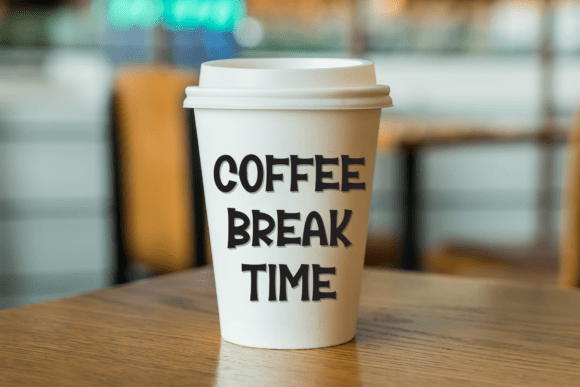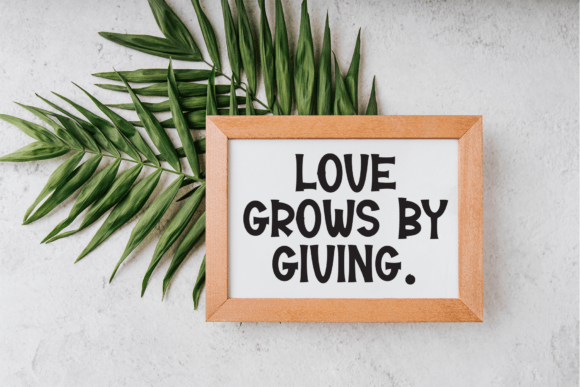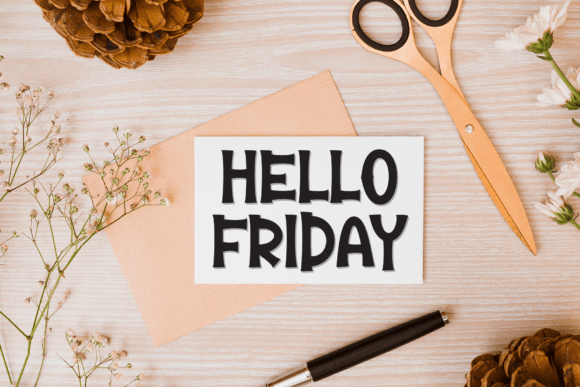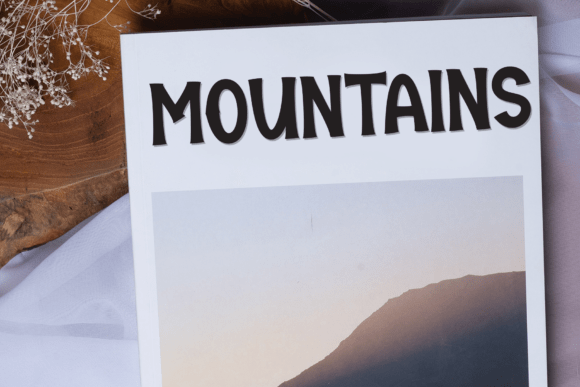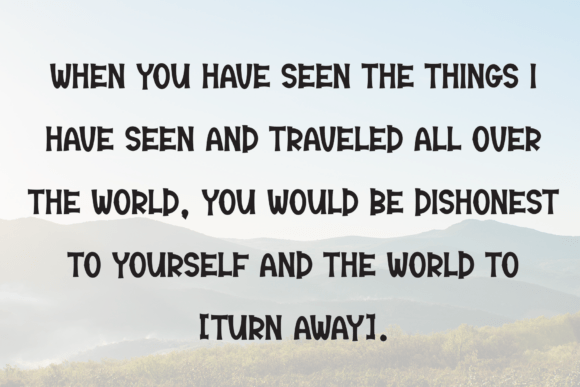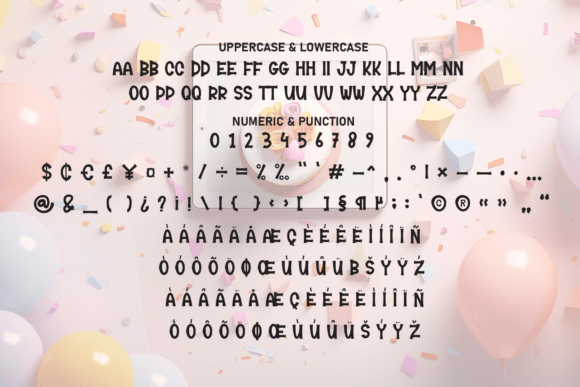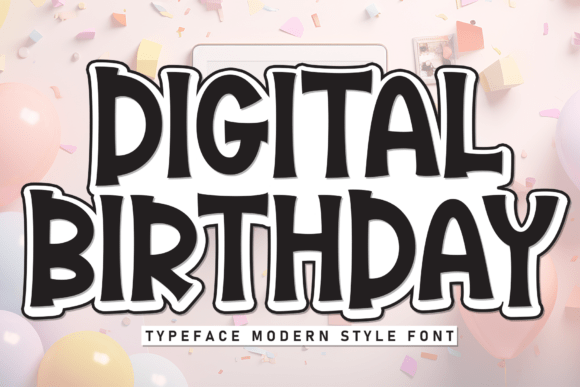
Introducing the Digital Birthday Font: Elevate Your Designs with a Touch of Elegance
Are you tired of using the same old fonts for your designs? Do you want to add a touch of elegance and sophistication to your projects? Look no further! Our Digital Birthday Font is here to revolutionize the way you create. With its unique and stylish letters, this font is perfect for a variety of applications, from wall displays to wedding invitations, social media posts, logos, advertisements, product packaging, and more.
What Makes Our Digital Birthday Font Special?
Our Digital Birthday Font is designed to provide you with an extraordinary experience. The latest style letters are carefully crafted to add a touch of creativity and flair to your designs. Whether you’re a designer, crafter, or DIY enthusiast, this font is perfect for anyone looking to elevate their projects. With its tasteful handwriting style, you can create stunning visual content that sets you apart from the crowd.
Endless Possibilities with Our Font
The Digital Birthday Font is incredibly versatile and can be used for a wide range of projects, including:
• Wall displays and signage
• Social media posts and logos
• Advertisements and marketing materials
• Product packaging and design
• Labels and branding
• Photography and watermarks
• Invitations and greeting cards
• Stationery and journals
Why Choose Our Digital Birthday Font?
With so many fonts available, why choose ours? Here are just a few reasons:
• Unique and stylish letters that add a touch of elegance to your designs
• Endless possibilities for use in a variety of projects
Tips and Tricks for Using Our Digital Birthday Font
To get the most out of our Digital Birthday Font, here are a few tips and tricks:
• Experiment with different font sizes and colors to add visual interest
• Combine our font with other design elements, such as graphics and images, to create stunning visual content
• Use our font to create custom logos and branding materials